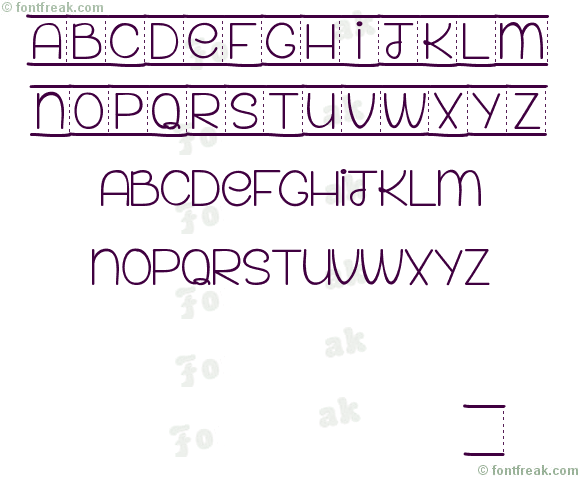
PAPER FOR YOUR ASS
PAPER FOR YOUR ASS by Maelle.K is a distinctive display font that perfectly blends playful charm with a modern aesthetic. This font features a unique handwritten style, characterized by its casual yet engaging letterforms. The stroke weight is consistent, giving a balanced appearance, while the subtle irregularities in the characters add a touch of authenticity and warmth. The spacing between letters is well-considered, ensuring readability while maintaining a relaxed vibe. Its decorative elements, such as rounded edges and slight variations in line thickness, enhance its playful character.
This font is an ideal choice for a variety of creative projects. It works wonderfully for wedding invitations, where its informal charm can set a lighthearted tone. For restaurant menus, PAPER FOR YOUR ASS adds a fun, inviting feel that can entice diners. Additionally, it's perfect for social media graphics, allowing content creators to infuse personality into their posts. Whether you're designing promotional materials for a small business or crafting eye-catching flyers for an event, this font is versatile enough to meet various needs.
In conclusion, the PAPER FOR YOUR ASS font free download is a delightful addition to any designer's toolkit. Its playful yet polished style, combined with its versatility across different applications, ensures that your projects will capture attention and convey a sense of character and creativity.